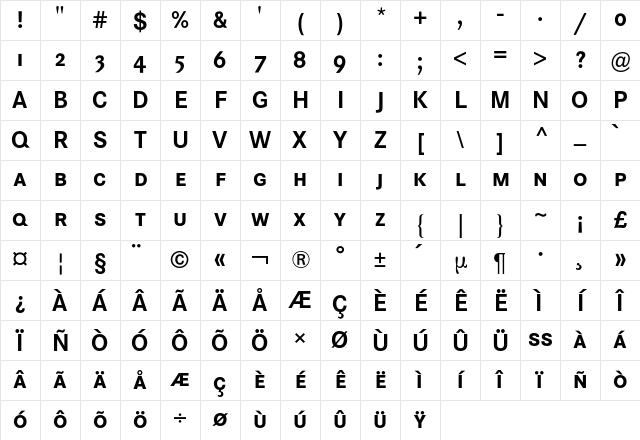
Corporate S Expert BQ Regular
Corporate S Expert BQ Family
Corporate S Expert BQ Regular
Corporate S Expert BQ Regular Font Preview
Corporate S Expert BQ Regular Uppercase Preview
Corporate S Expert BQ Regular Lowercase Preview
Corporate S Expert BQ Regular Numeric Preview
Corporate S Expert BQ Regular Character Map
Complete Corporate S Expert BQ Regular glyph index. Displaying only characters natively supported by Corporate S Expert BQ Regular font.
Design Context for Corporate S Expert BQ
Corporate S Expert BQ is a composed and adaptable typeface that performs quietly and consistently across a wide range of design contexts.